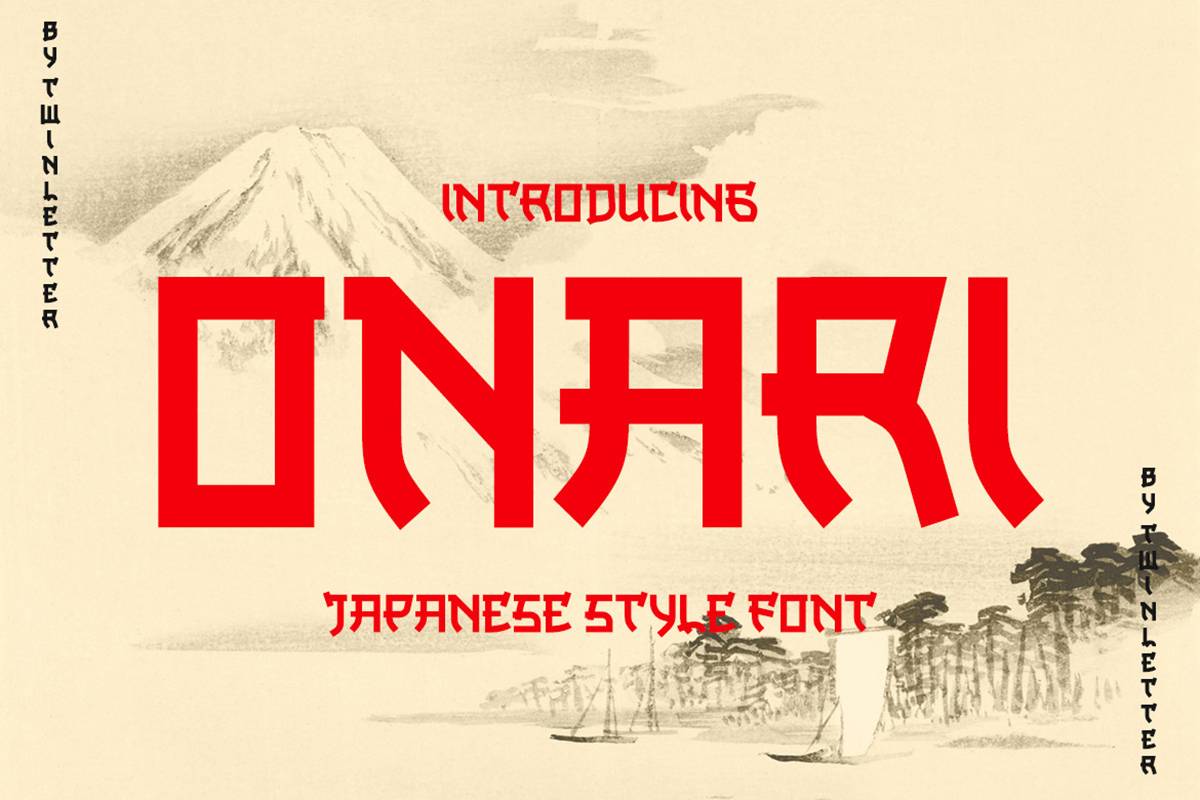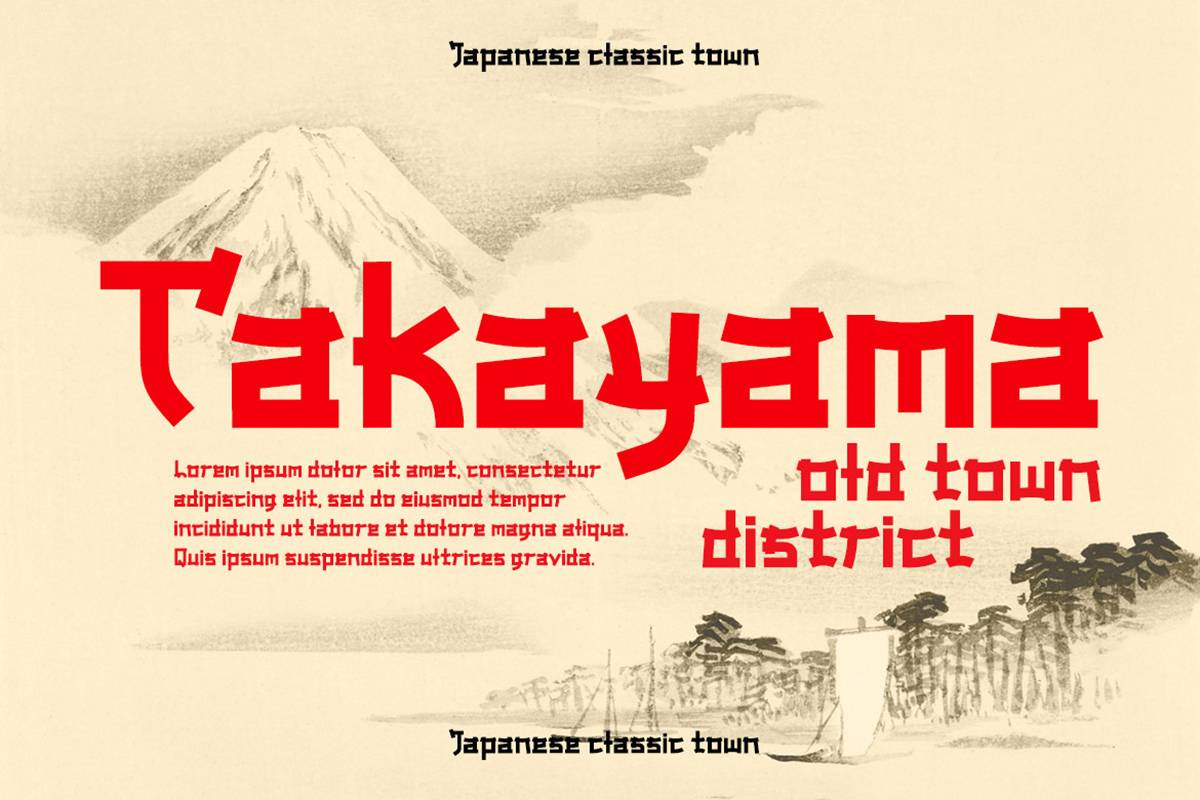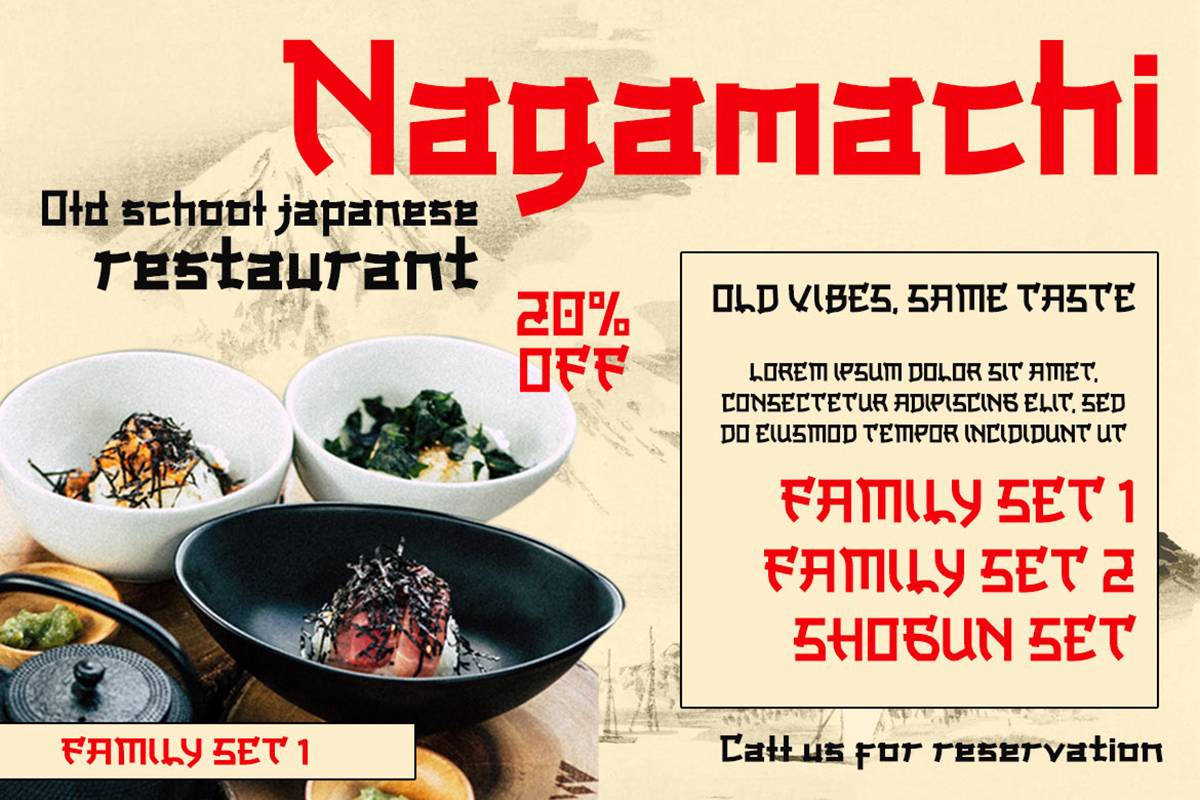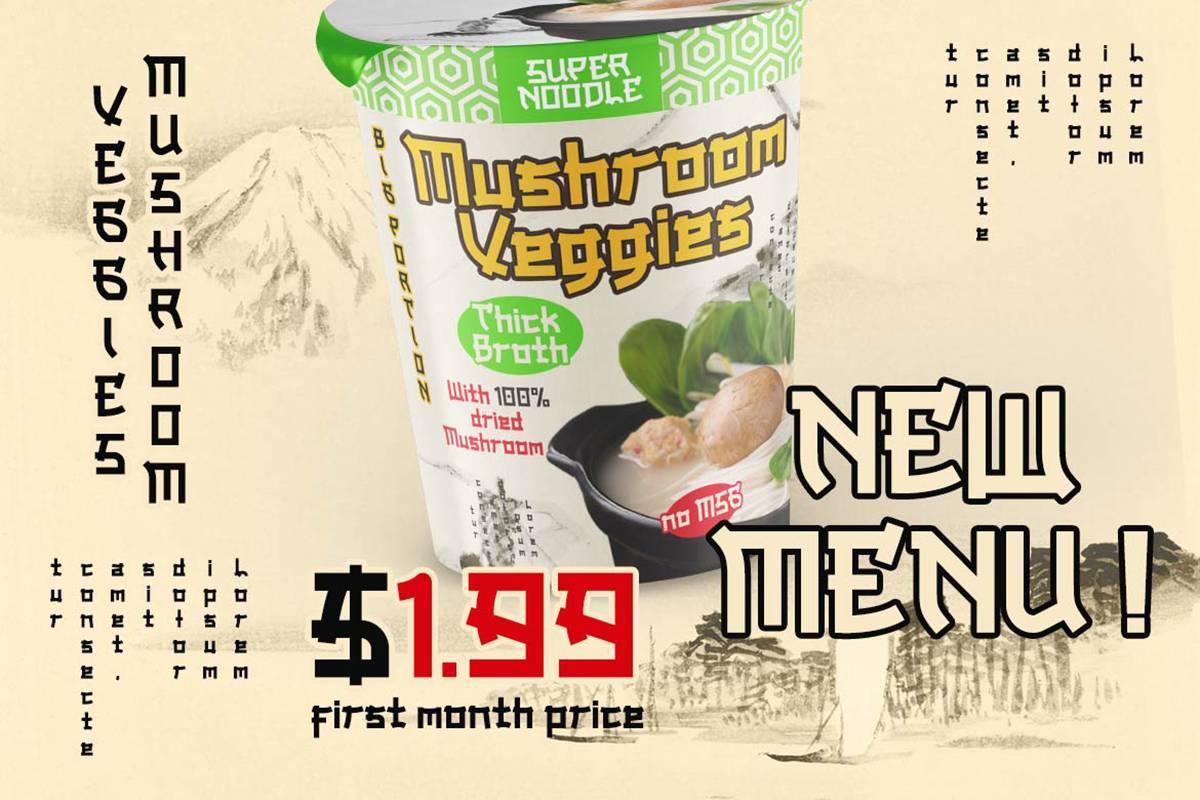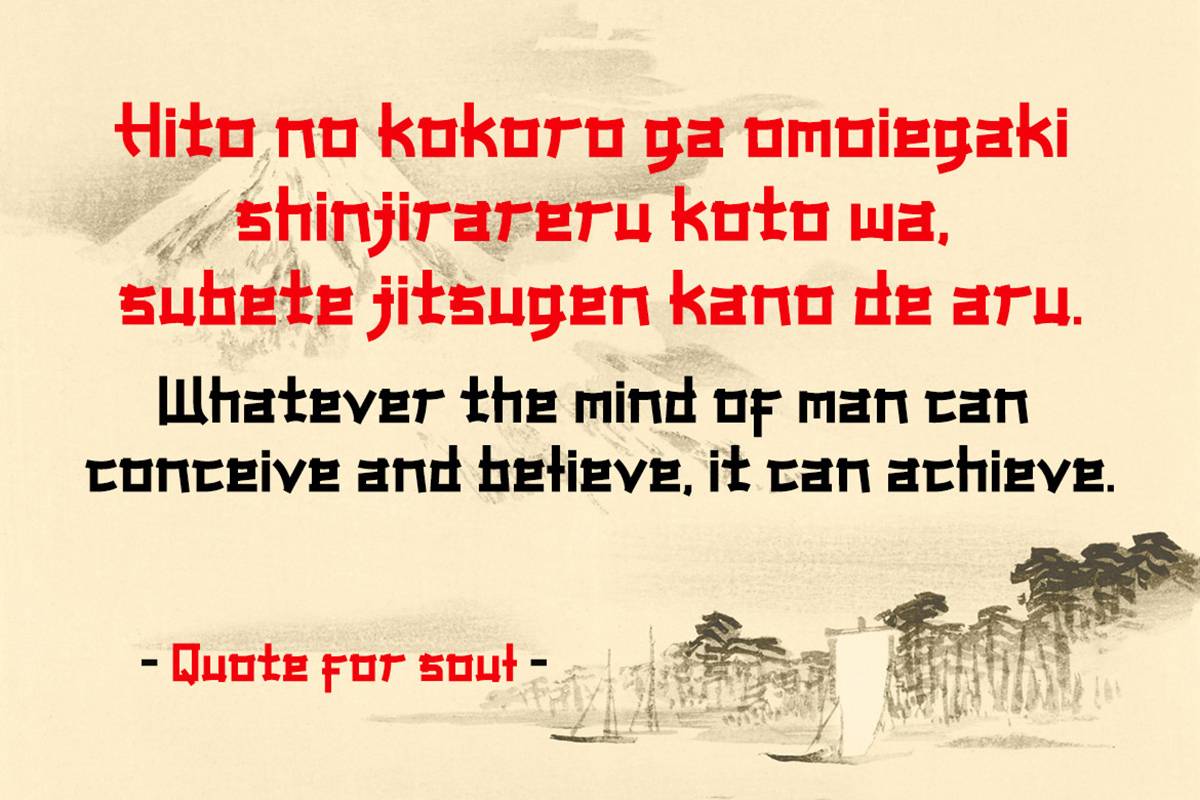
Onari is a bold, geometric display font with a strong, angular design that blends modern and gothic influences. Its sharp edges and unique letterforms create a striking, edgy personality, making it ideal for headlines, logos, and branding that demand attention and a distinct, contemporary vibe. This font works particularly well in creative projects where a bold, unconventional look is desired.
Onari Font
About Onari Font